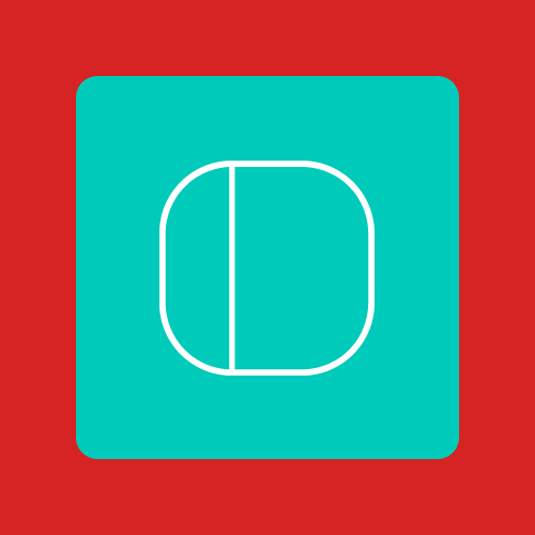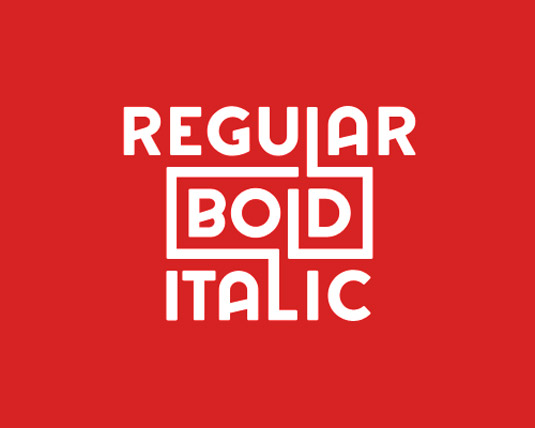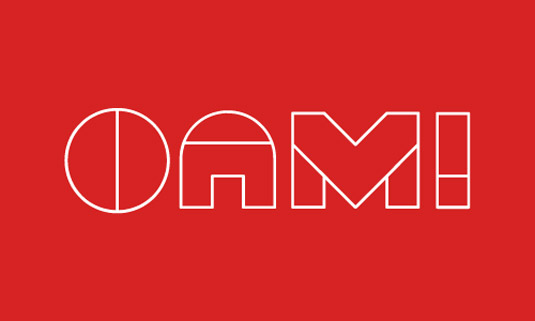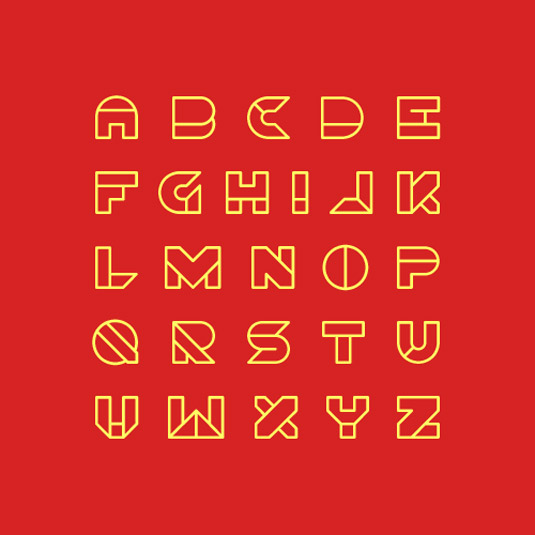
Font of the day: Oami
Oami by Tommy Beemsterboer
Today's font of choice is Oami, created by graphic designer Tommy Beemsterboer. "Oami is inspired by the fine craft of origami," he comments. "The letterforms are mainly based on the logical shapes of folded paper, which makes it a solid font with a dynamic character."